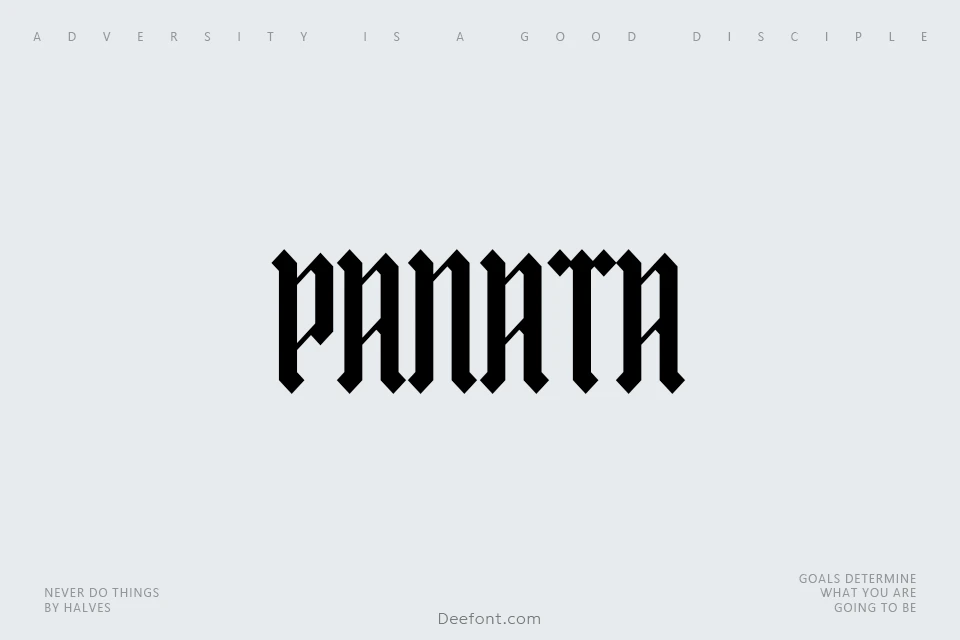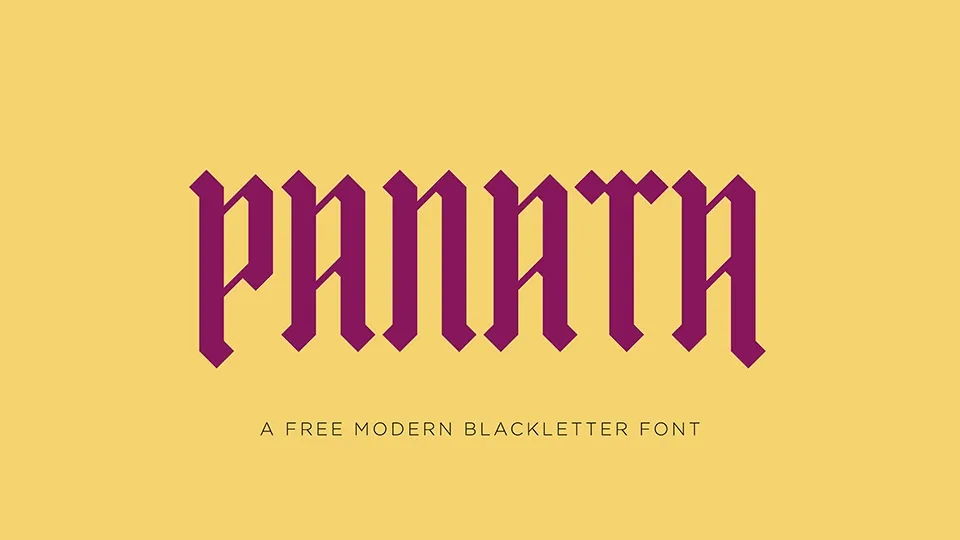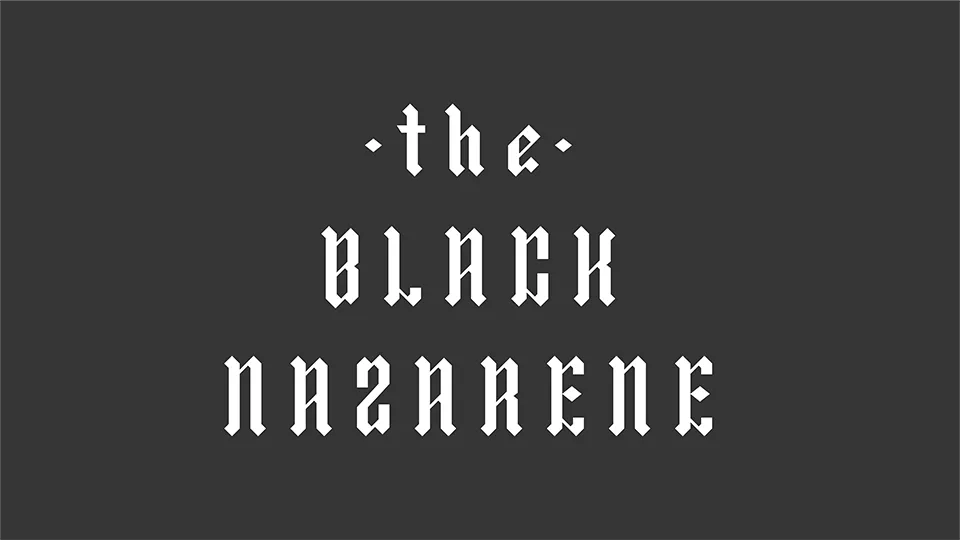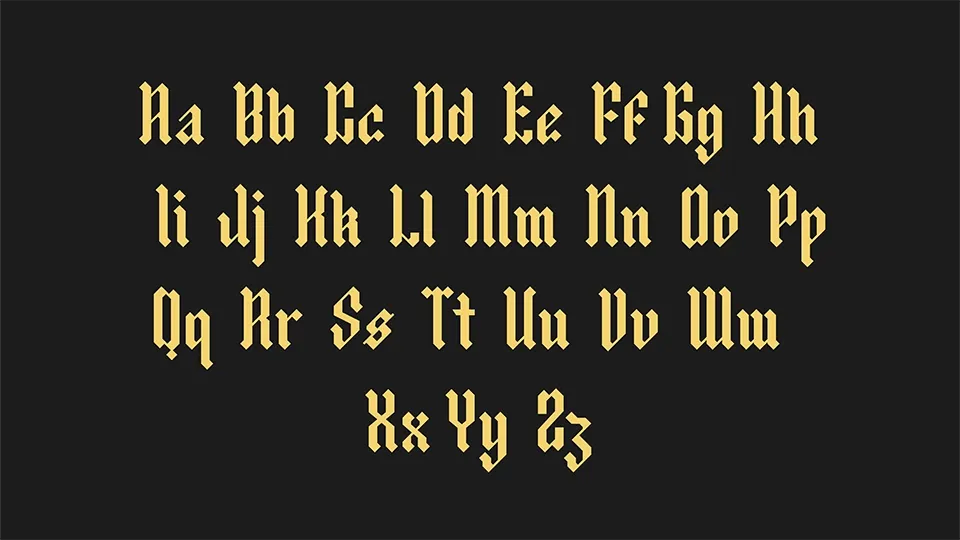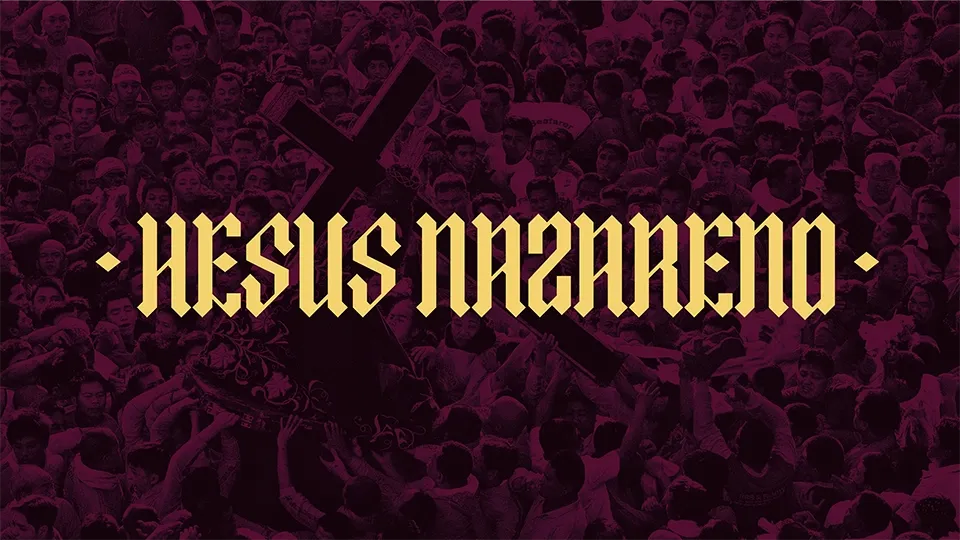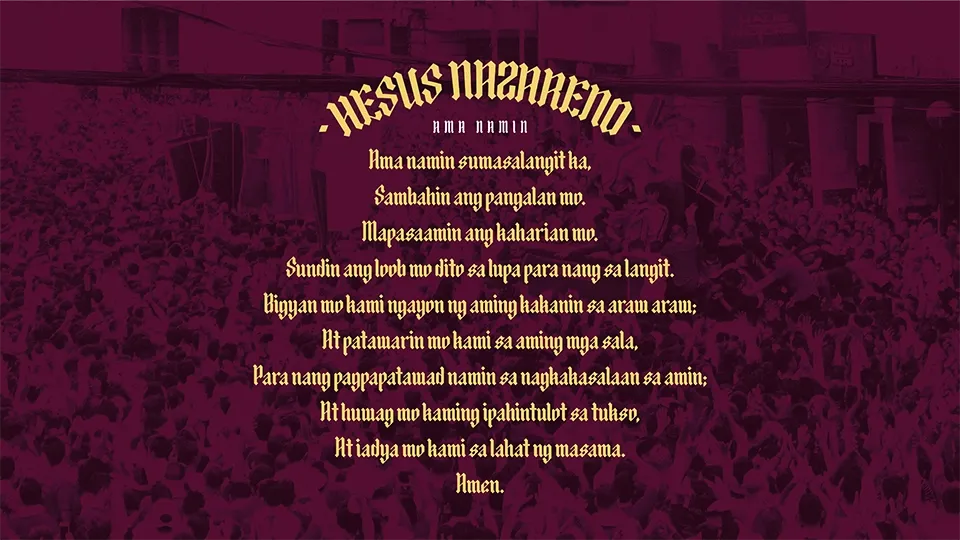
Panata Blackletter Font
Panata Blackletter Font is a modern blackletter typeface inspired by hand-lettered signs in Manila streets and the devotion to the Black Nazarene. Designed by AJ Dimarucot, this authentic and daring display font features strong, dark letterforms with a steady rhythm, making it perfect for headlines, logos, posters, and other creative display uses. The free version includes uppercase letters and numbers, offering a versatile option for striking typographic designs.